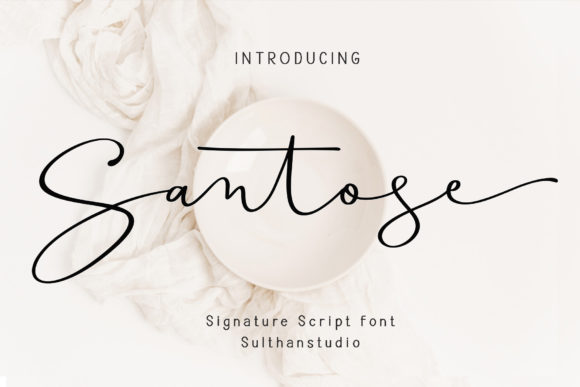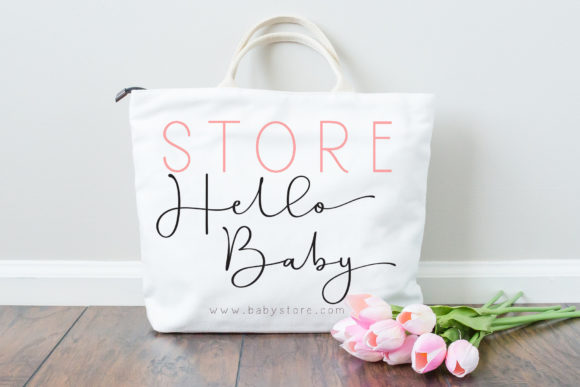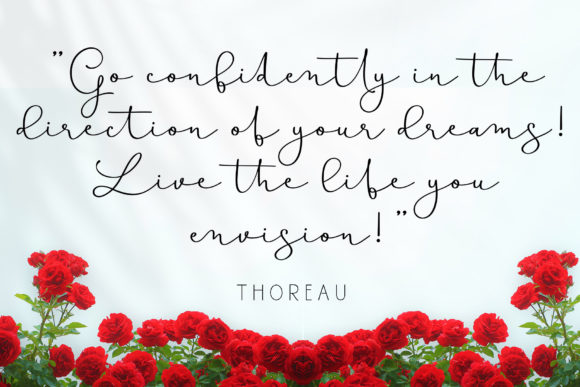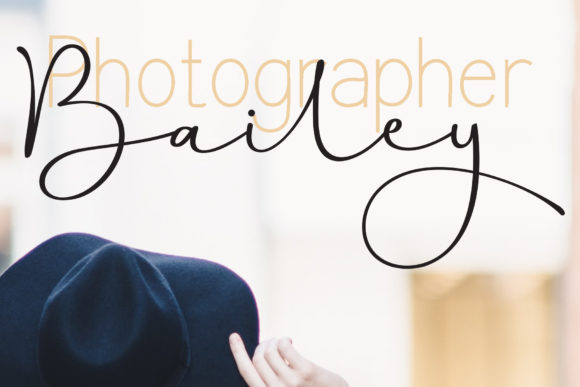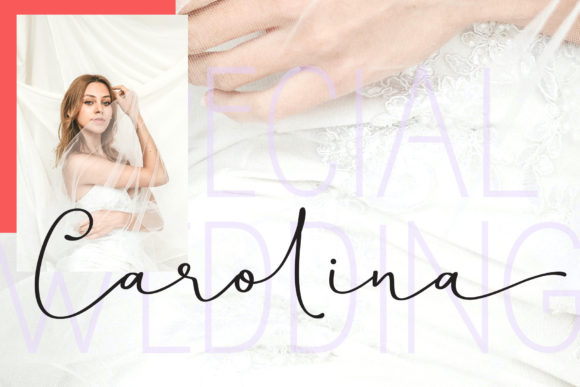
Santose Font
About Santose Font
Santose is a beautiful script font made especially for designers who need a cute semi-signature font that is classy ad modern at the same time. This font is PUA encoded, which means you can access all of the glyphs and swashes with ease!